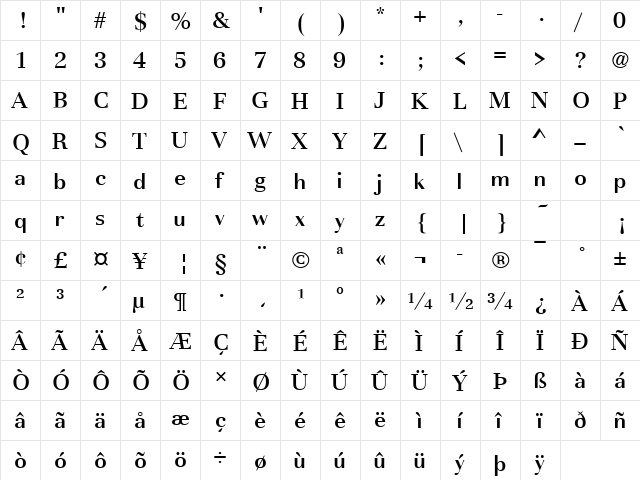
BasiliaTMed Regular
Design Context for BasiliaTMed Typeface
BasiliaTMed takes a measured approach to typography — its balanced proportions and neutral character make it a reliable workhorse for both digital and print work.